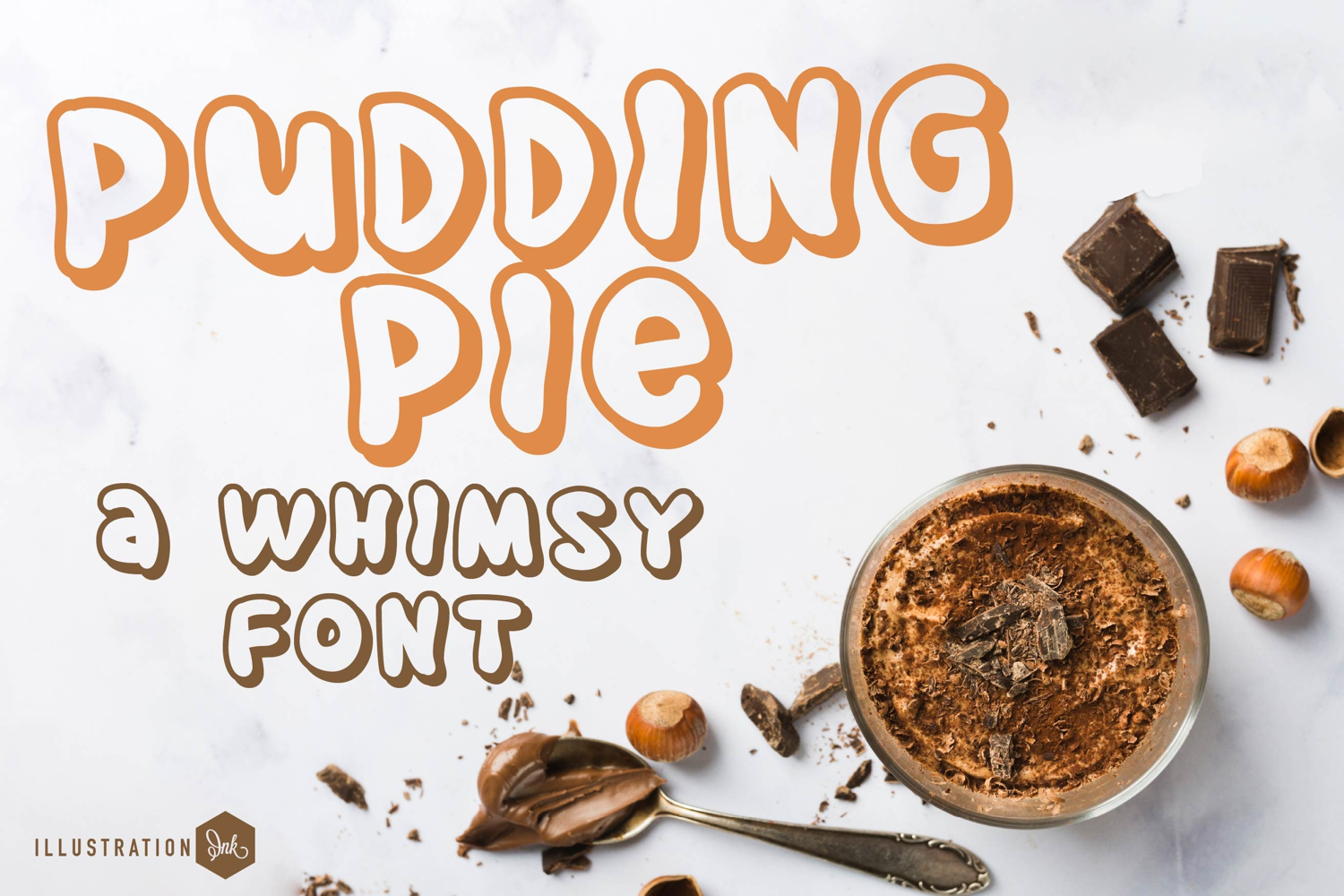
Pudding Pie Font Family
This hand-crafted font is a chunky, rounded sans serif.
• The letters are not perfectly uniform in size or shape.
• There may be slight variations in the spacing between letters and words.
• The font may have a "wiggly" or "squiggly" appearance.
• The font may be difficult to read at small sizes.